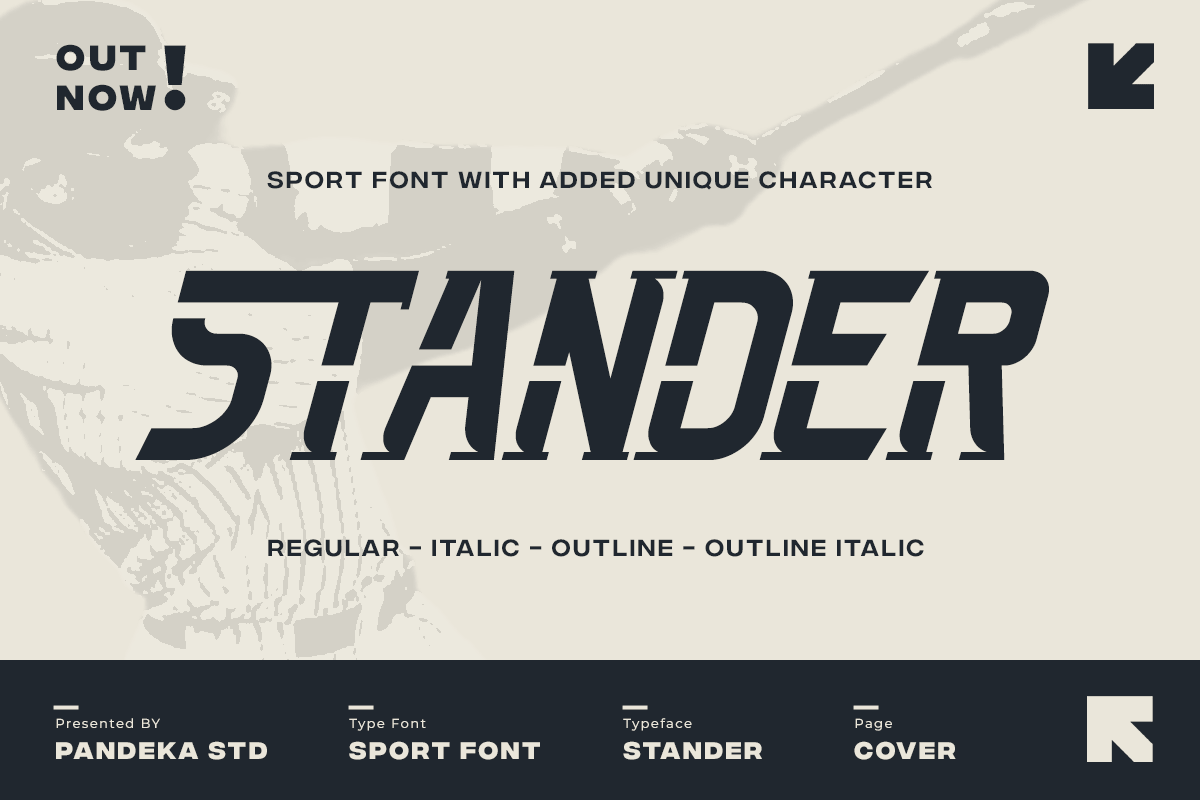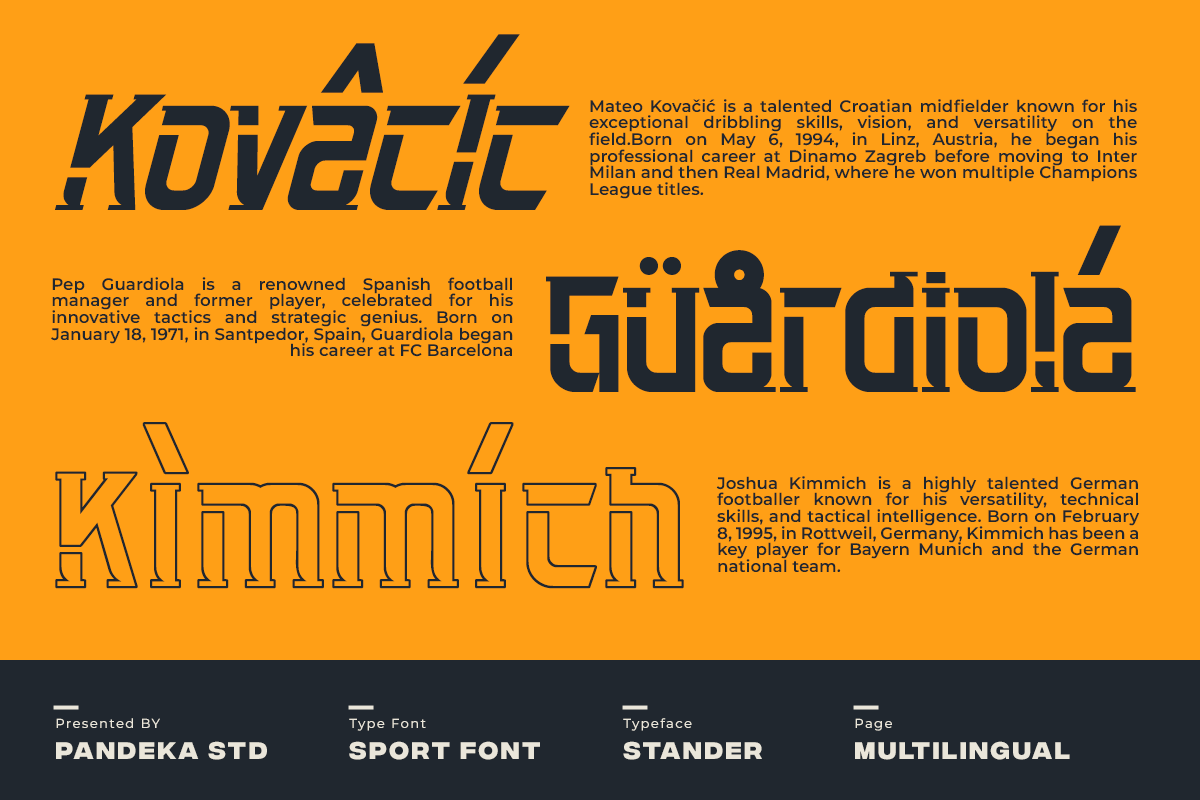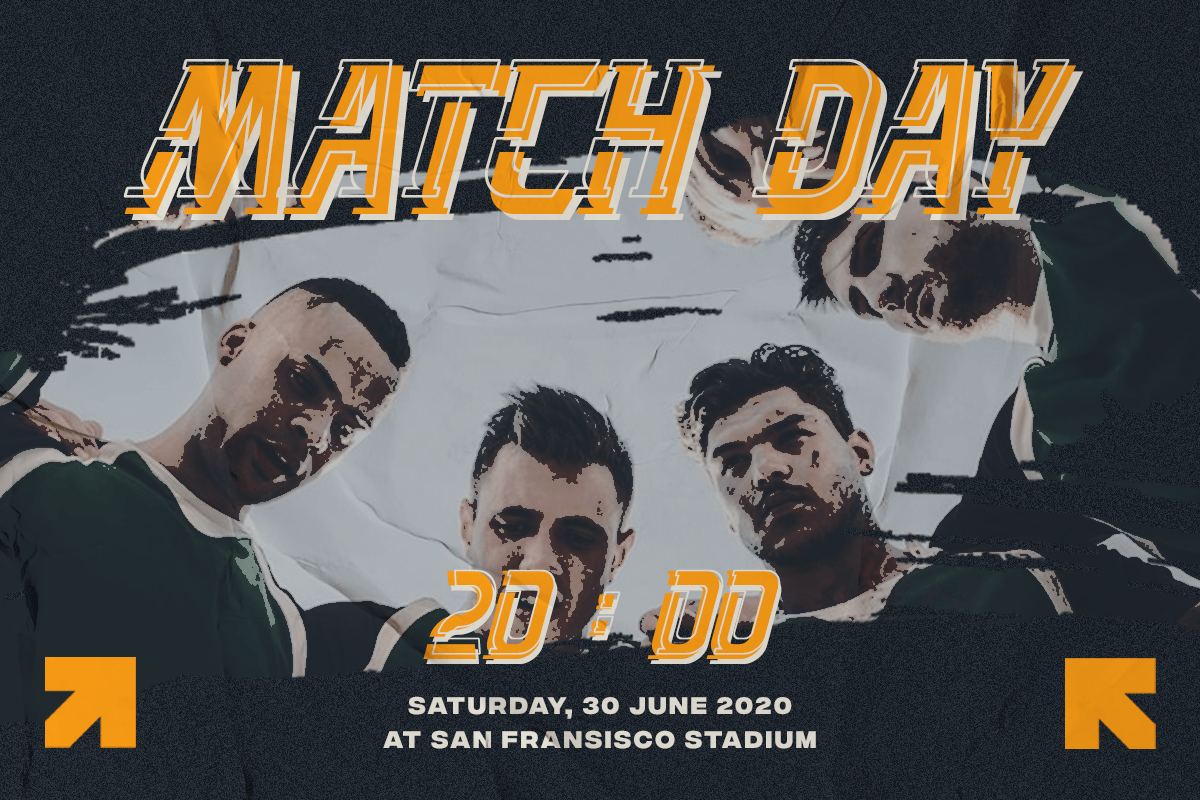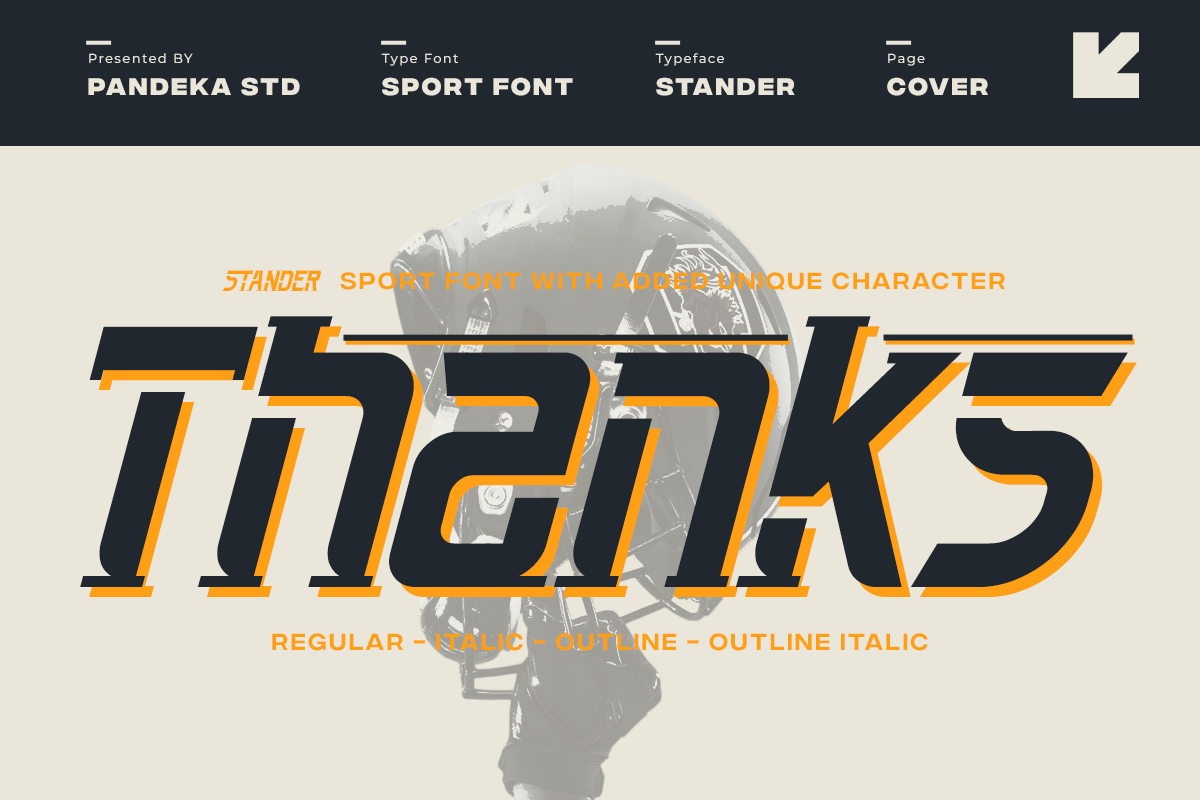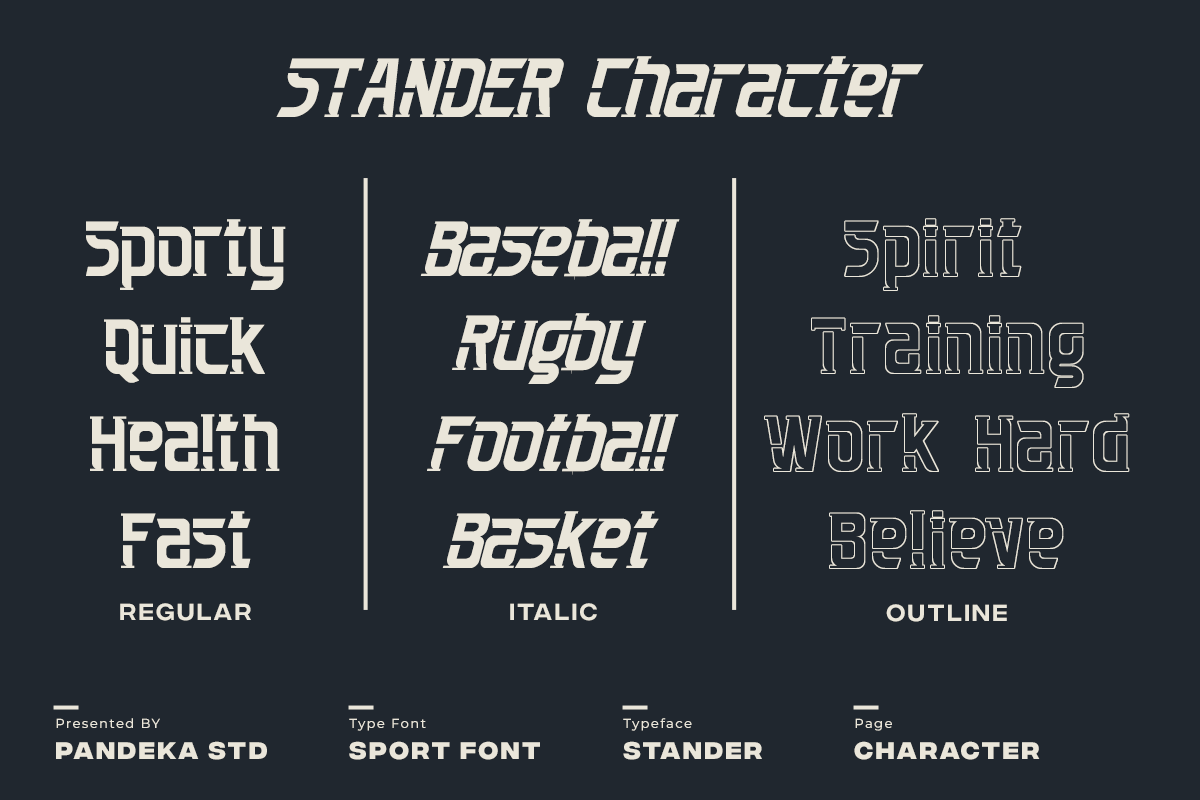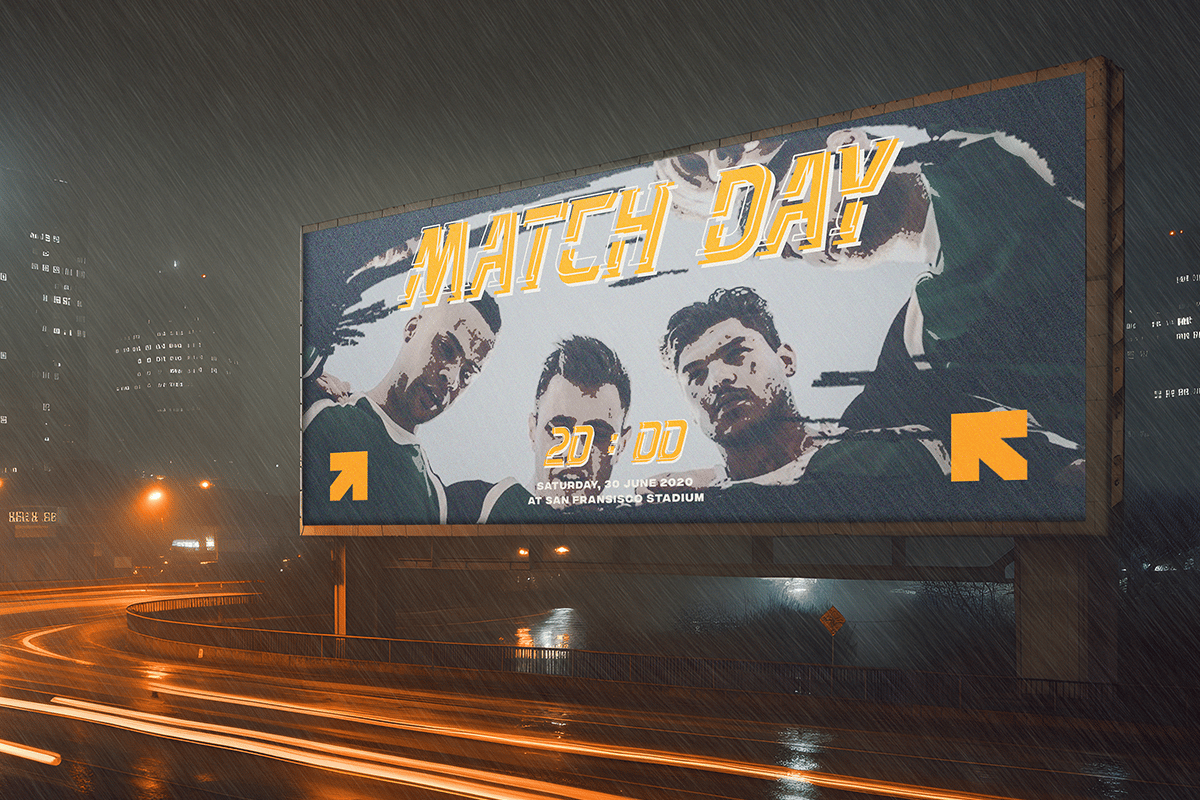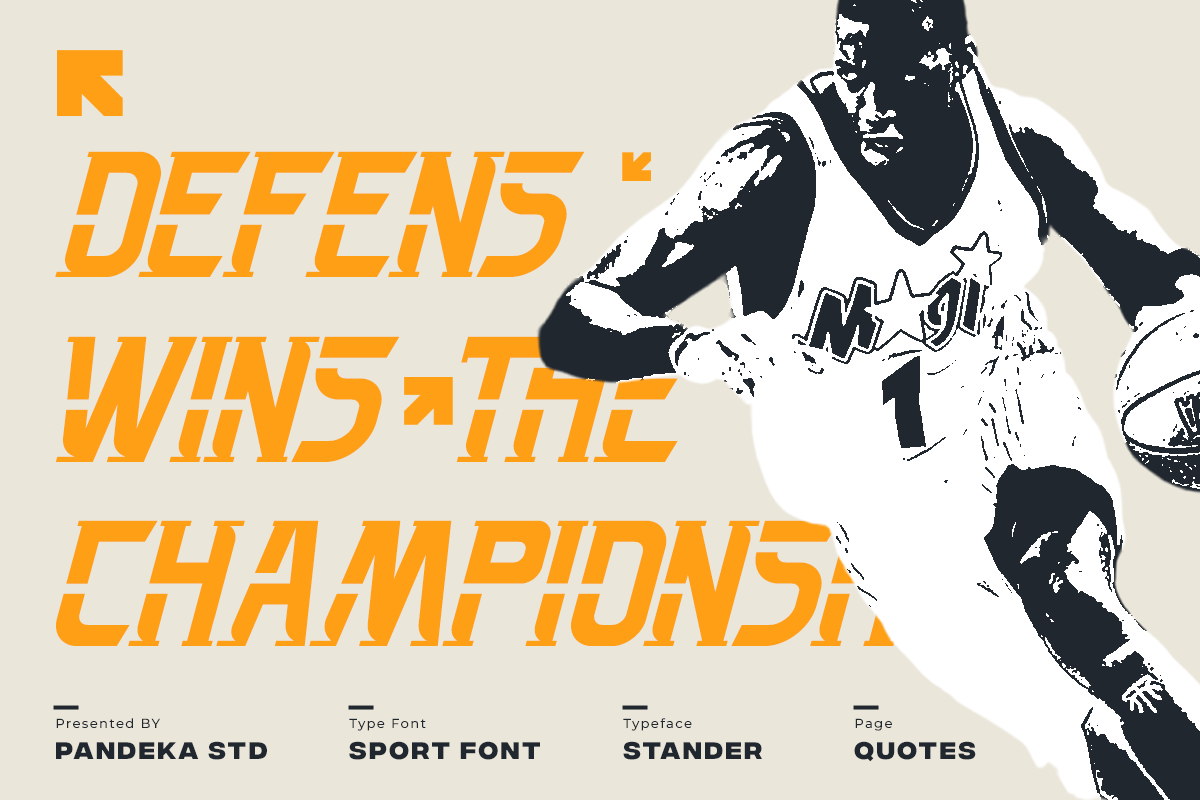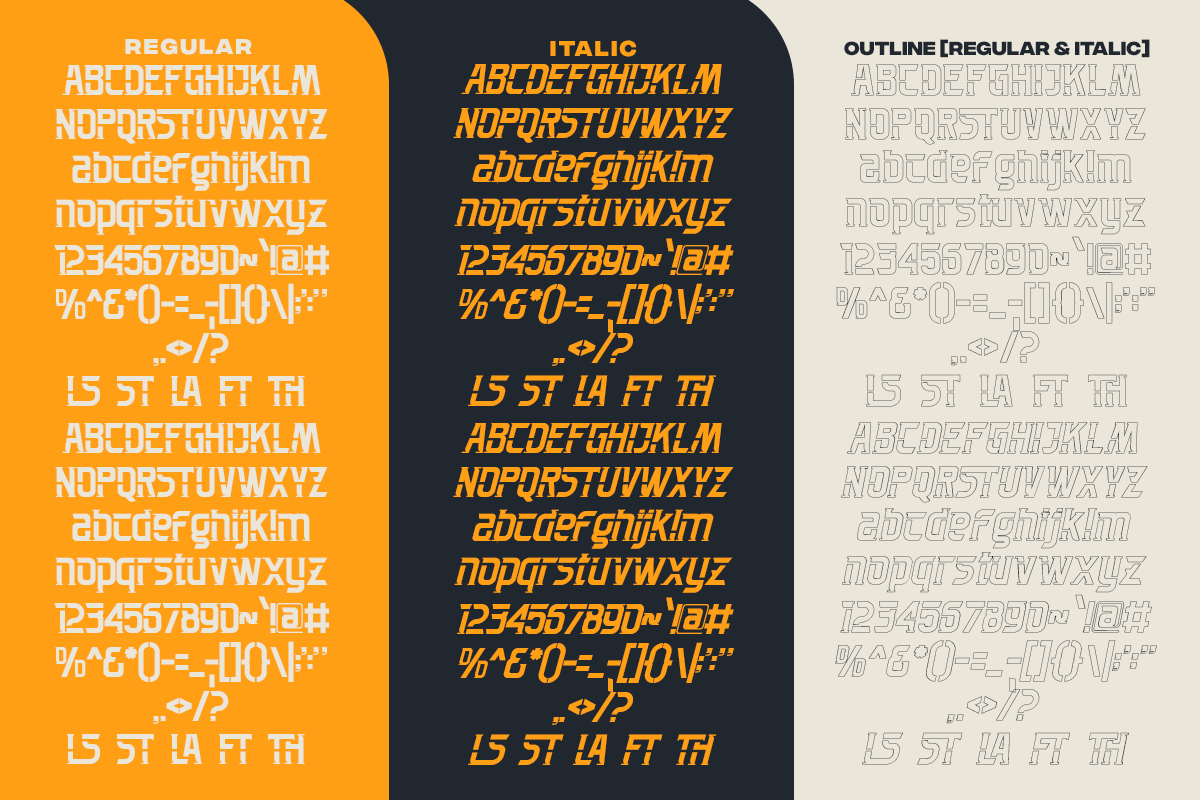
Stander – Baseball Sport Font
Introducing Stander – the ultimate font for any sporting event, designed to capture the energy and excitement of outdoor sports. With three distinct styles: Regular, Italic, and Outline, Stander excels in high-speed situations while maintaining a contemporary tone, making it clear that your brand means business.
Stander type family is athletic and dynamic, evoking the spirit of sport with new shapes inspired by historical trends and modern typography. Features include slab and display types, oblique styles, multiple ligatures, and style alternatives, ensuring Stander stands out and grabs attention.
- Regular, Italic, and Outline
- Uppercase & Lowecase Letters
- Complete Special Alternates
- Unique letterforms
- Currencies